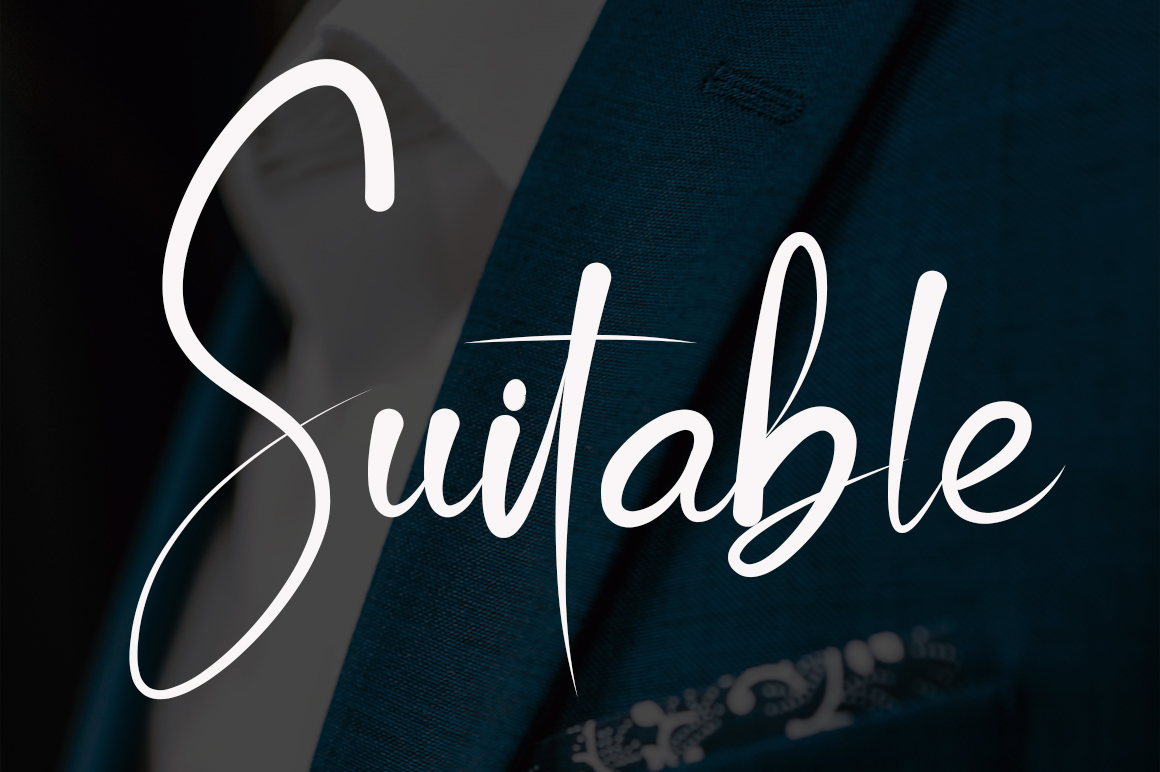
Ollivitess Font
Ollivitess Font is a dainty and romantic script font that seems to flow endlessly and exquisitely onto any product! Use it in creative projects that need elegant and natural-looking typography!